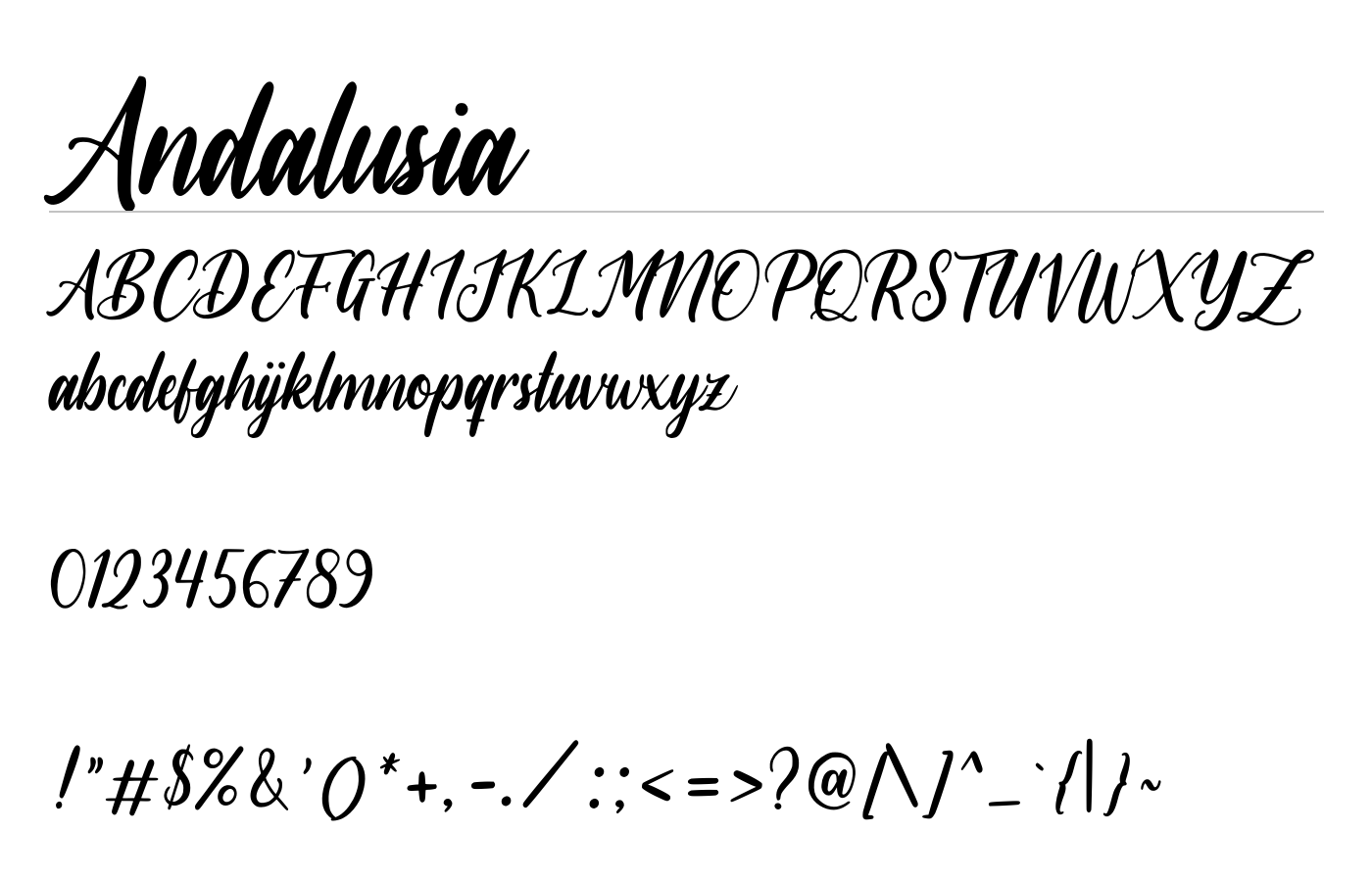
Andalusia is a graceful script font with a smooth, flowing style that combines a sense of elegance and friendliness. Its moderate weight and clean, slightly narrow letterforms make it ideal for adding a personal, handwritten touch to invitations, branding, and creative projects where a warm yet refined look is desired. This font shines in headlines and decorative text, bringing a charming and approachable personality to designs.
Andalusia Font
About Andalusia Font